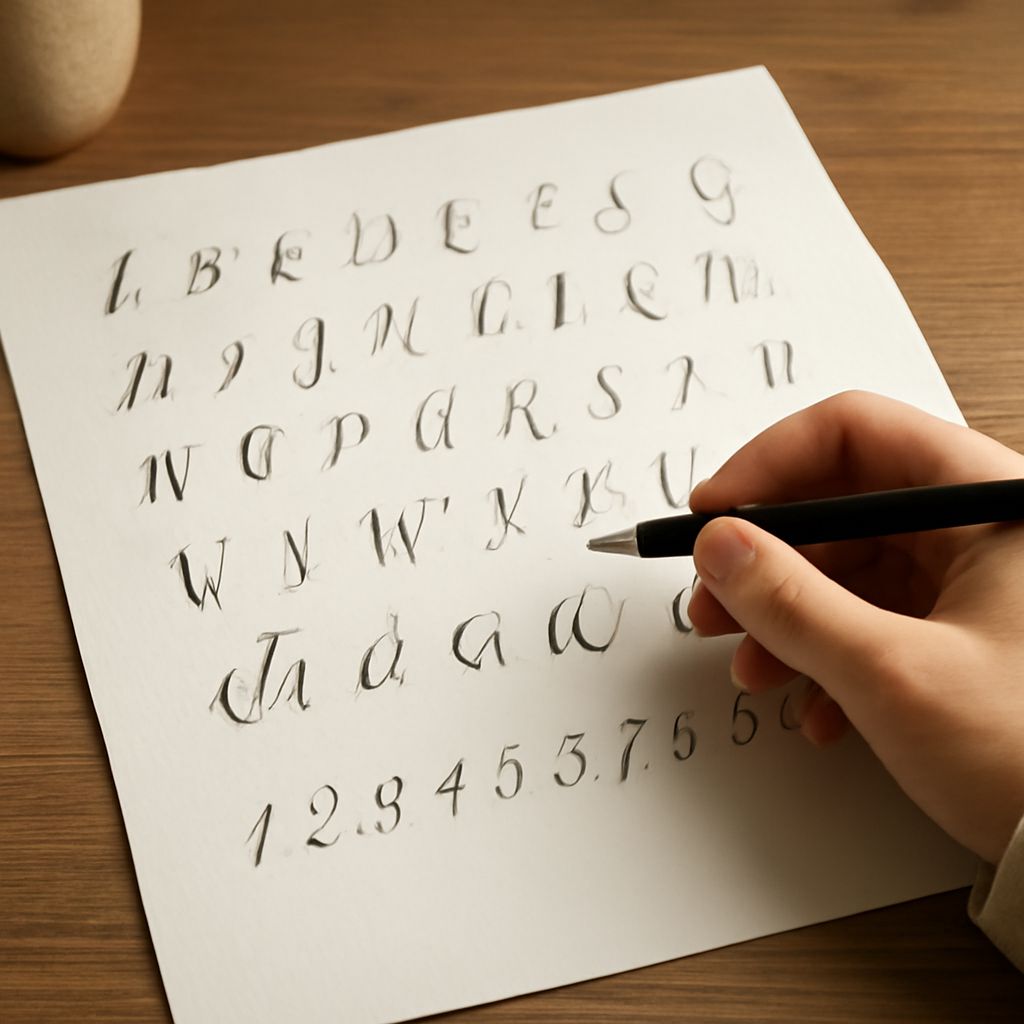
Have you ever wondered how to transform your digital projects with a touch of personal flair? The answer lies in using handwriting fonts free of charge, which offer a unique and stylish way to convey your message. Whether you’re interested in an easy to write font for a school project or a sophisticated vintage handwriting font for a wedding invitation, these fonts can provide the visual appeal you seek. In this guide, you’ll explore everything from the key attributes of a simple handwriting font to where you can download handwriting font styles safely and effectively.
By understanding the nuances of handwriting fonts free for personal or professional purposes, you can elevate your design projects to new heights. These fonts capture the essence of human writing, combining elegance and accessibility. Whether you’re aiming for a playful or polished look, there’s a handwriting style ready to inspire your creativity. Let’s delve into the world of these fonts and see how they can enhance your designs.
Understanding Handwriting Fonts Free
What Makes a Font Easy to Write? An easy to write font typically features clear, legible lettering with balanced spacing. The goal is to mimic natural handwriting to ensure that anyone can read it effortlessly. Such fonts are often characterized by simple, clean lines and consistent weights, making them ideal for both casual and professional uses. When you choose a font that’s easy to write, you’re opting for clarity and versatility.
Beyond aesthetics, an easy-to-write font should also be versatile enough to adapt to different media, whether you’re creating graphics for online platforms or printed materials. Simplicity in design doesn’t only mean minimalism; it also ensures that your content remains accessible and engaging to your audience.
Why Choose a Vintage Handwriting Font?
Choosing a vintage handwriting font can add a touch of nostalgia and elegance to your projects. These fonts often feature intricate details, such as flourishes and varied line weights, that replicate the charm and sophistication of handwritten letters from bygone eras. Whether you’re designing wedding invitations or retro-themed posters, a vintage handwriting style can convey authenticity and emotion.
Moreover, vintage handwriting fonts are perfect for creating a visually compelling narrative. They allow you to tell a story through your design, drawing on historical and artistic themes. By integrating these fonts into your work, you can evoke a sense of timelessness and creativity that resonates with audiences.
Exploring Simple Handwriting Font Options
Key Features of a Simple Handwriting Font Simple handwriting fonts are defined by their straightforward design and ease of use. Typically, they have uniform strokes and consistent letterforms, making them perfect for legibility across various applications. These fonts are great for casual communication, such as personal notes and informal documents.
Aside from being practical, simple handwriting fonts can also be quite stylish. They can complement a wide range of design elements, from bold graphics to subtle, understated layouts. The simplicity of these fonts allows them to blend seamlessly with other design choices, providing a harmonious visual experience.
For those seeking a specific style, consider using search filters to narrow your options based on style, weight, and usage rights. By choosing from these trusted sources, you can download fonts with confidence, knowing that they’ll meet your creative needs and technical requirements.
Experiment with different combinations to discover what works best for your project. Pay attention to the hierarchy and readability, ensuring that the fonts enhance rather than overpower each other. This careful consideration can lead to stunning and professional designs.